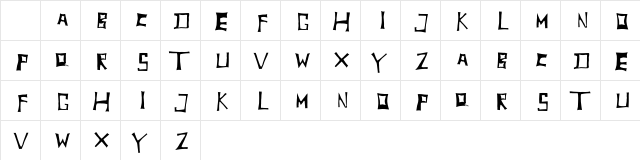
TobyFont is a composed and adaptable typeface that performs quietly and consistently across a wide range of design contexts.
Pro Tip: Use TobyFont in both headline and body roles to test its range before committing to a single application.